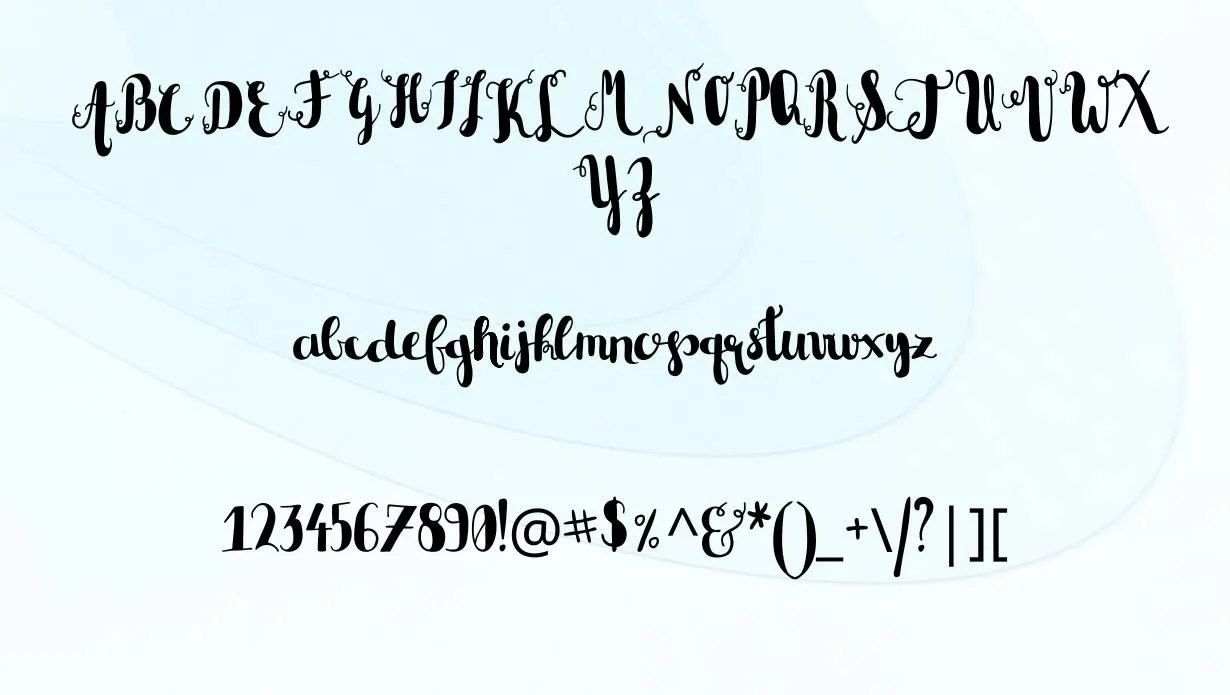
Little Cutie Font is a charming and friendly typeface designed to bring a cute and approachable feel to your projects. With its rounded shapes and smooth lines, this font is ideal for creating a warm and inviting atmosphere.
Little Cutie Font works well for children’s products, social media graphics, and any design where a touch of sweetness is desired. Its readability and cheerful demeanor make it a delightful choice for conveying a positive and friendly message through your typography.